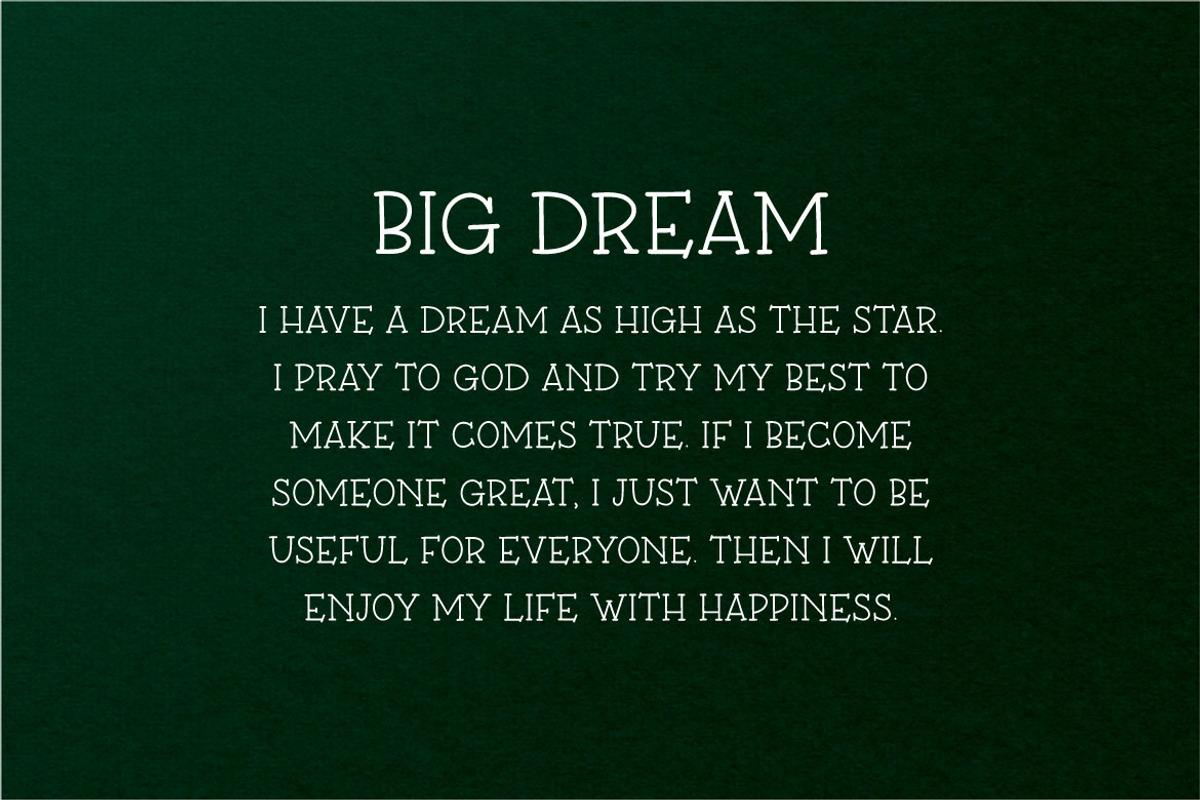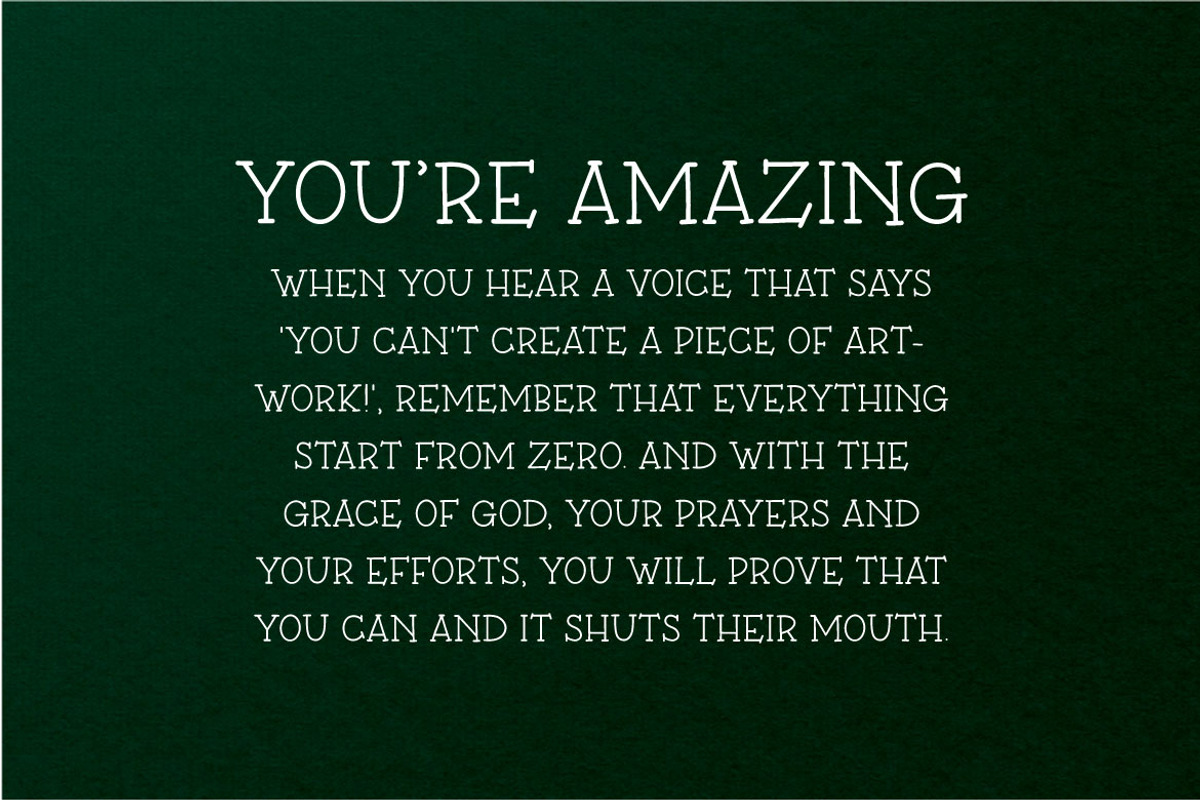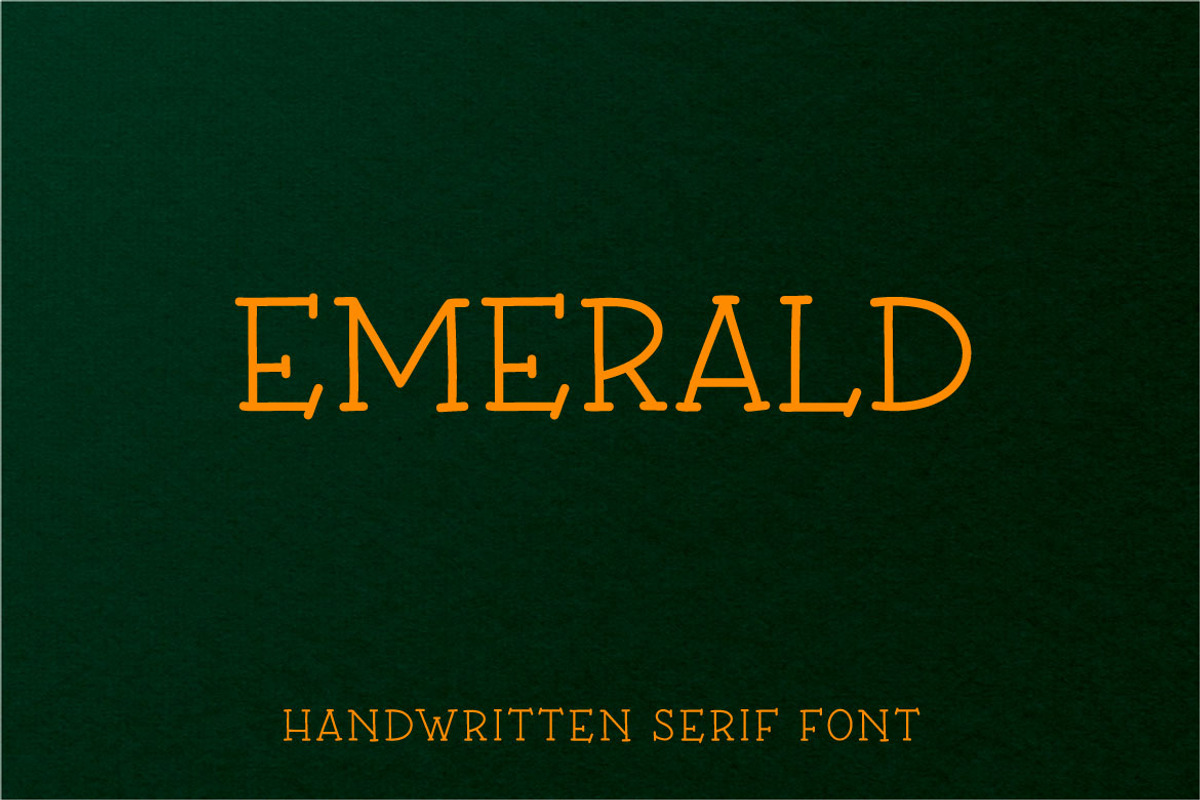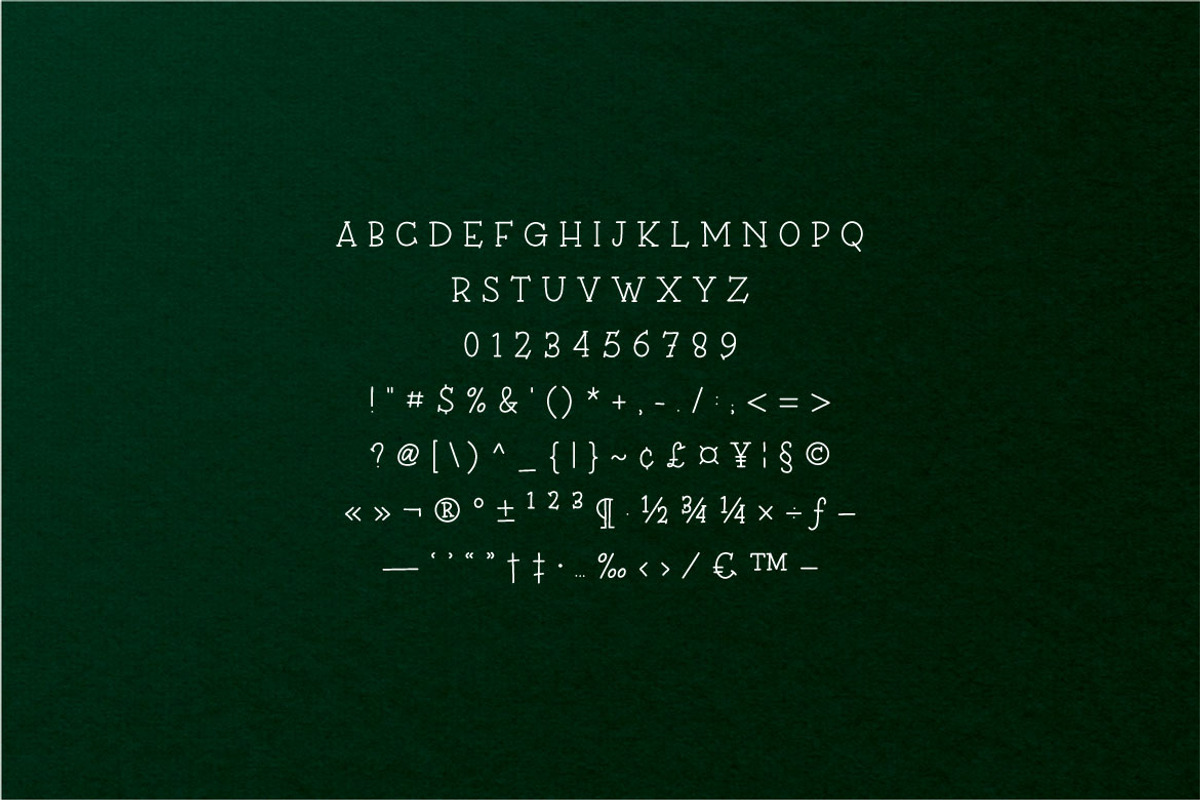
Emerald - Thin Serif Font
Hello! Emerald is a thin serif font. Emerald can be used in any works such as poster, school, flyer, book title, advertisement, social media content, logo and many more.